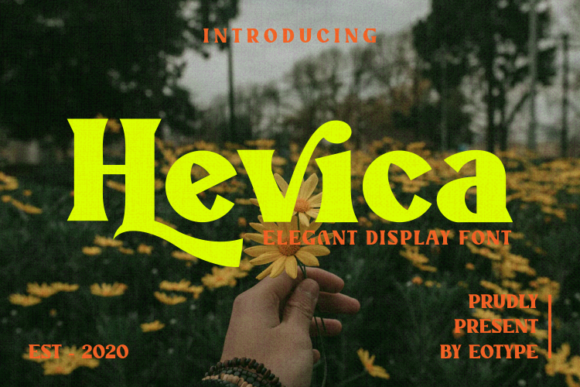
Step into the world of Hevica, a serif font that commands attention and exudes timeless elegance. With its bold strokes and classic curves, Hevica is the perfect choice for creating designs that speak of sophistication and charm.
Unleash your creativity and craft wordmark logos that leave a lasting impression. Let Hevica's graceful letters dance across wedding invitations, transforming them into cherished keepsakes. Elevate your magazine layouts with a touch of refined beauty, making each page a visual masterpiece. Hevica's versatility knows no bounds, seamlessly adapting to any project that demands a sleek and elegant aesthetic.
With Hevica, you hold the key to unlocking a world of design possibilities. Its PUA encoding grants you effortless access to a treasure trove of glyphs and swashes, empowering you to add intricate details and flourishes that captivate the eye.
Hevica is more than just a font; it's an artistic tool that breathes life into your designs. Its bold personality adds a touch of drama to posters and flyers, while its delicate curves lend a sense of grace to branding and marketing materials. Whether you're crafting social media graphics, designing product packaging, or creating stunning website layouts, Hevica stands as your steadfast companion, elevating your work to new heights of sophistication.
Don't settle for ordinary fonts that blend into the background. Embrace the distinctive charm of Hevica and watch as your designs transform into works of art. Its timeless appeal ensures that your creations will endure the test of time, leaving an indelible mark on the hearts and minds of those who behold them.